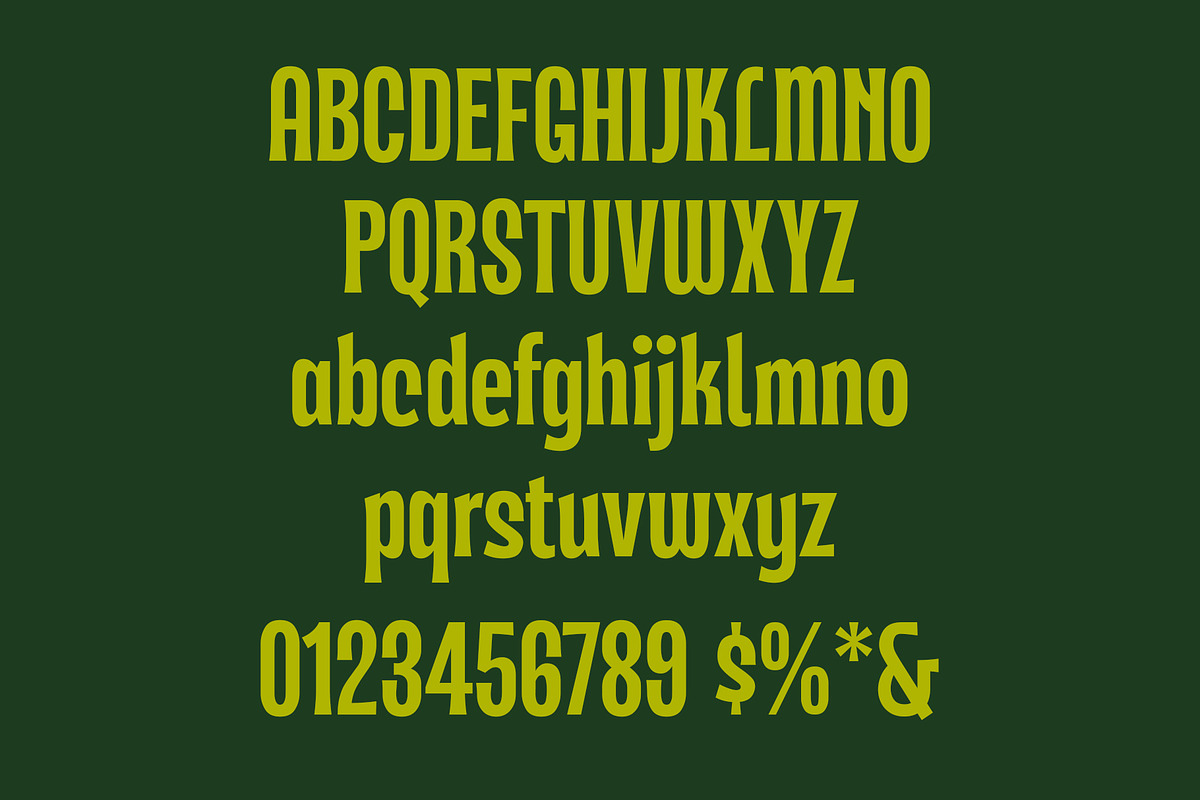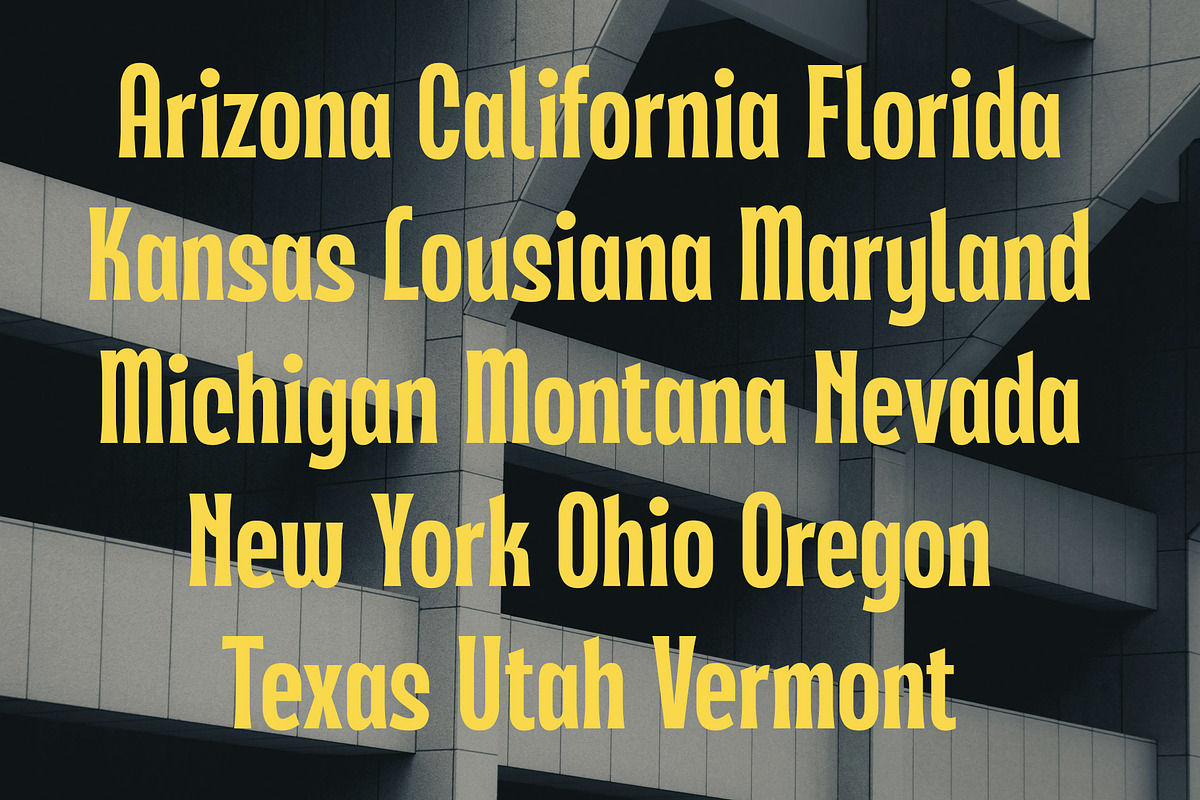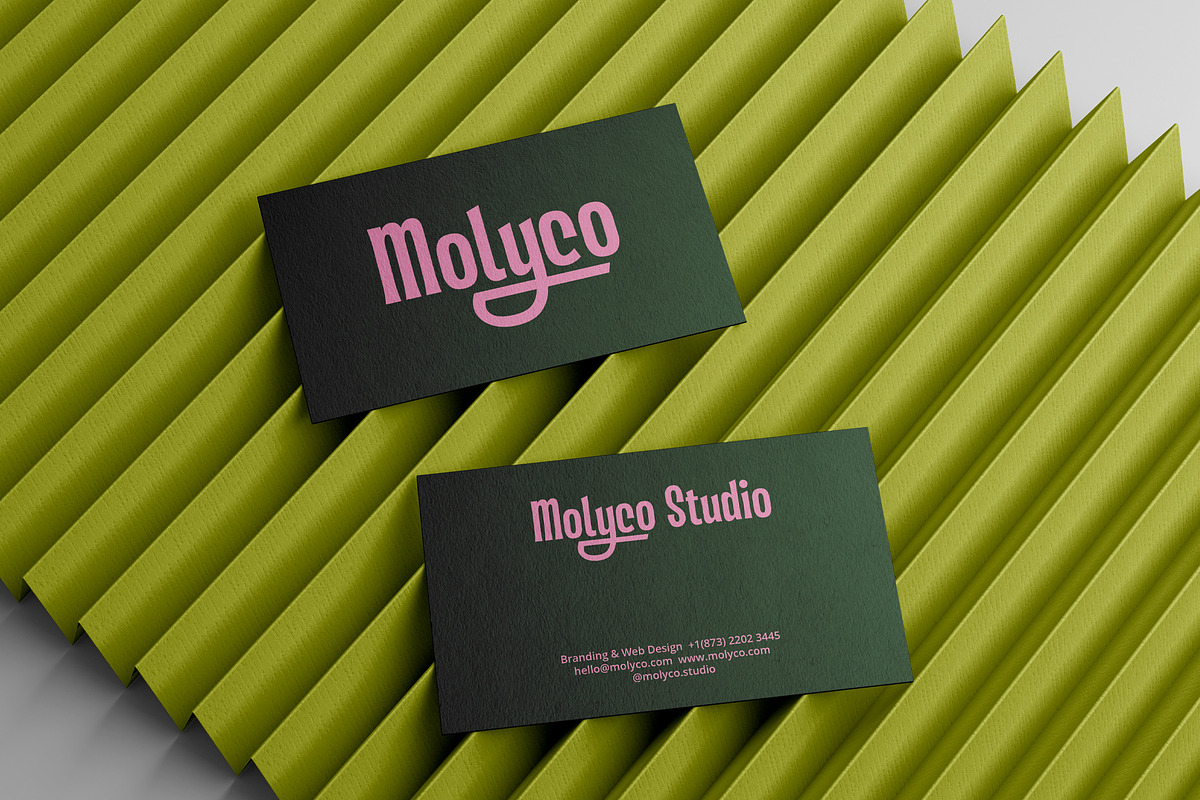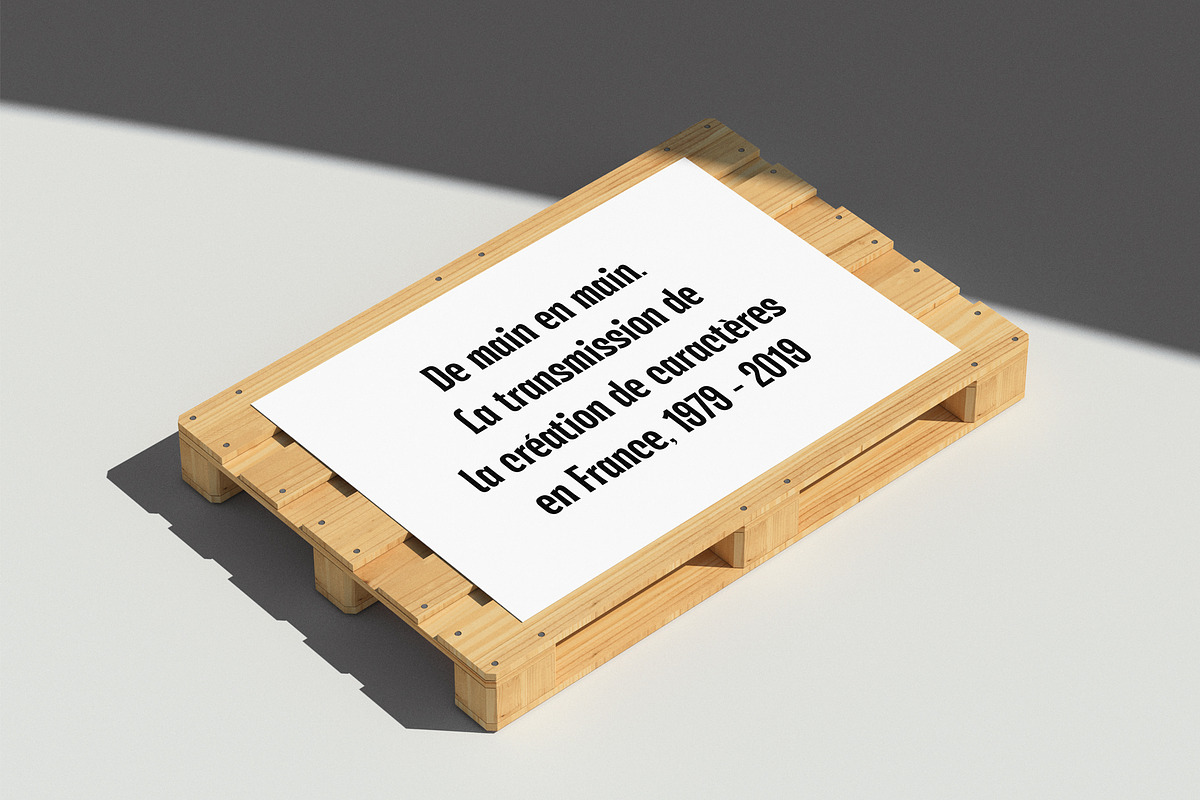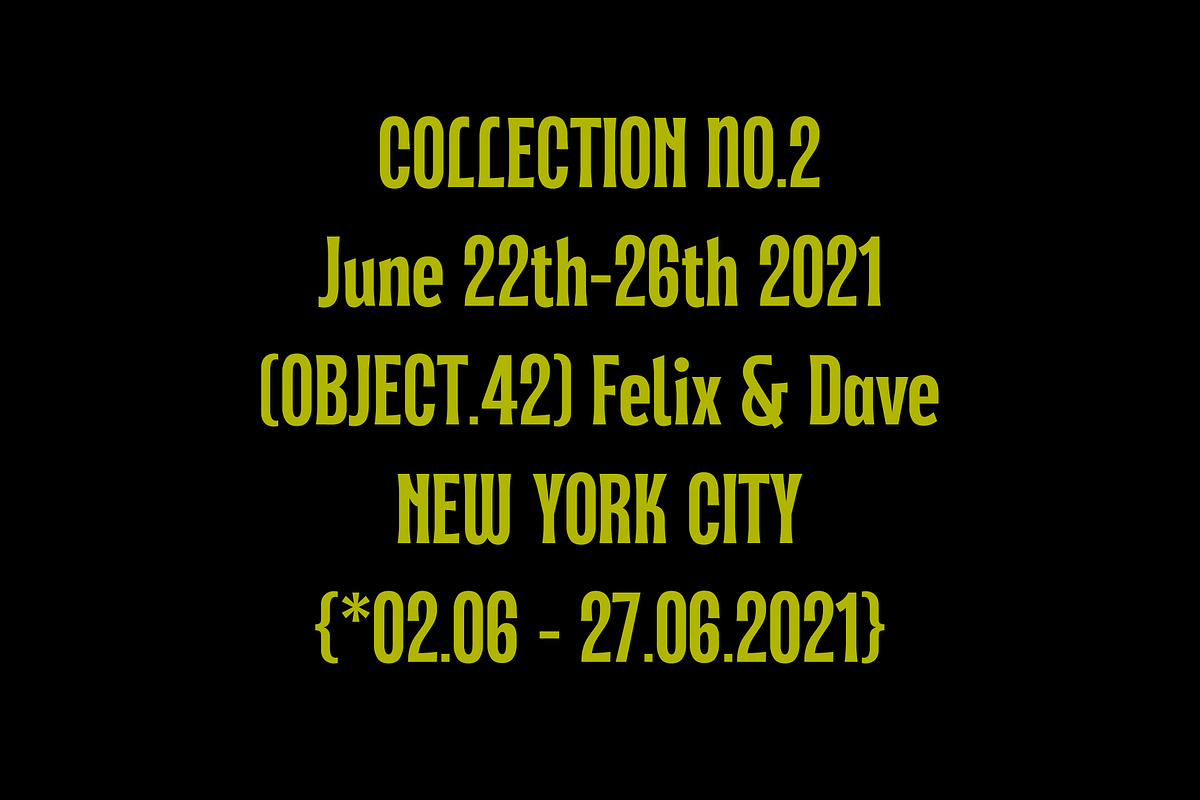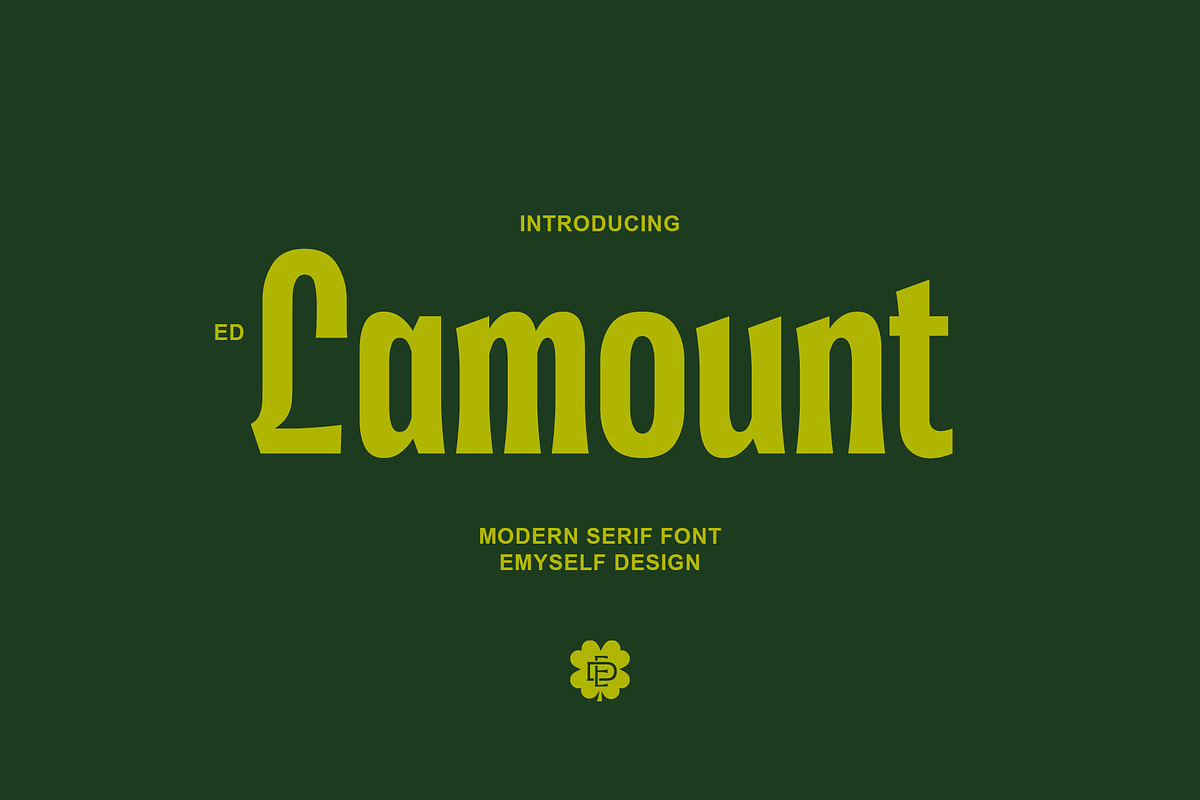
ED Lamount
Lamont is a condensed serif font with a modern style. With a minimalist appearance, this font is suitable for various designs and is easy to combine with other fonts. This font is also equipped with alternate characters and multi-language support.
This font is perfect for your design needs, such as logo design, branding, apparel, headings, web, etc.
- Total Glyph: 422
- Punctuation and Marks
- Contextual Alternative
- 90+ stylistic sets & Ligatures